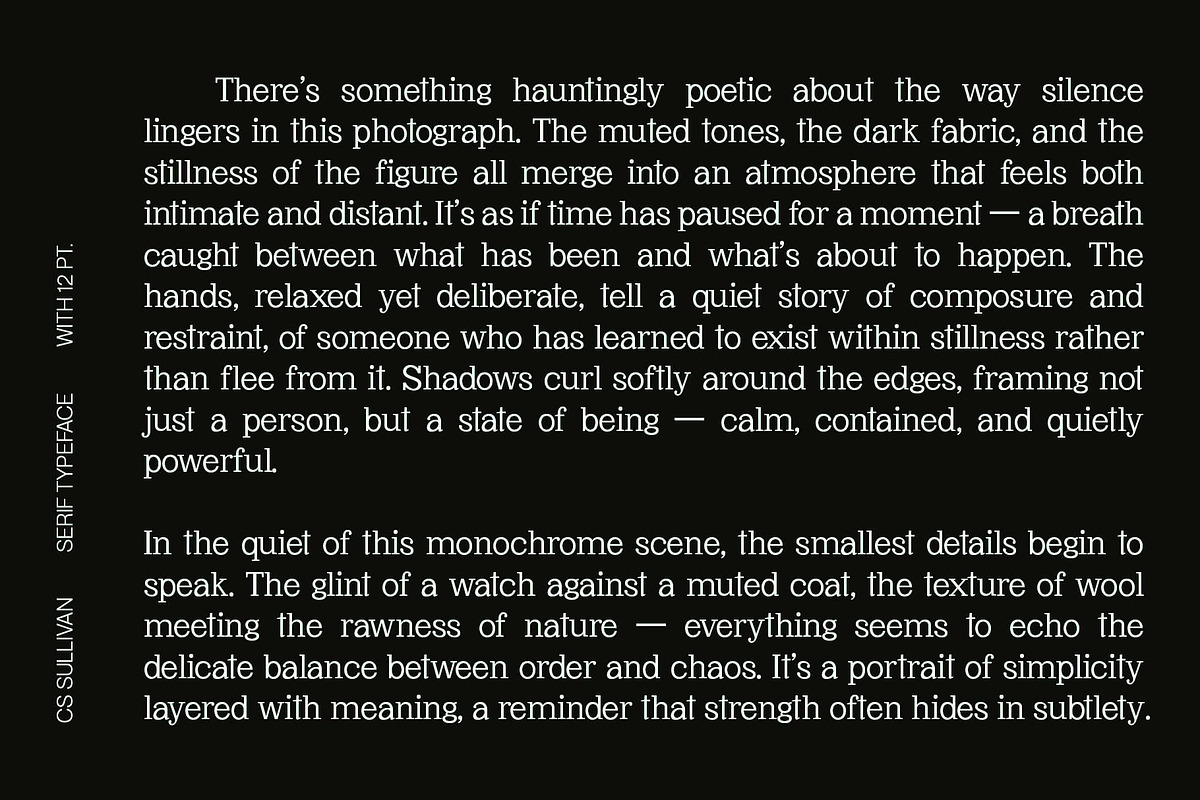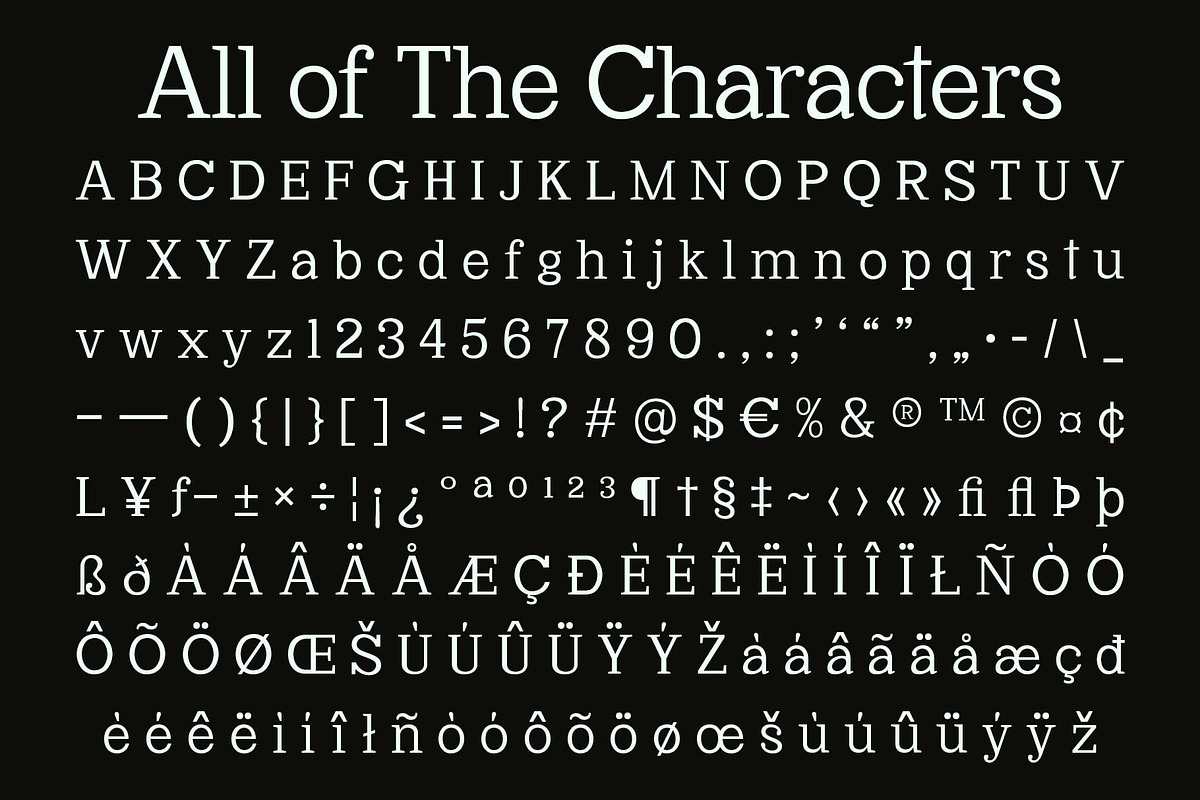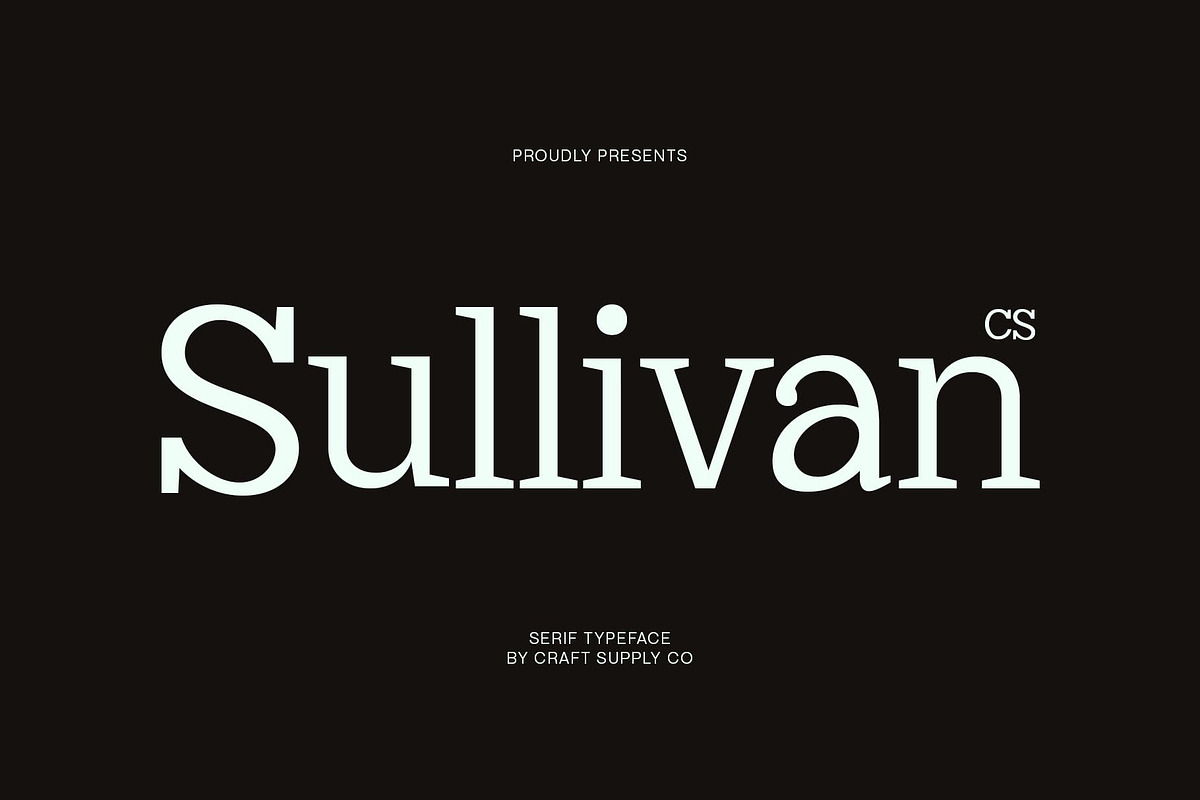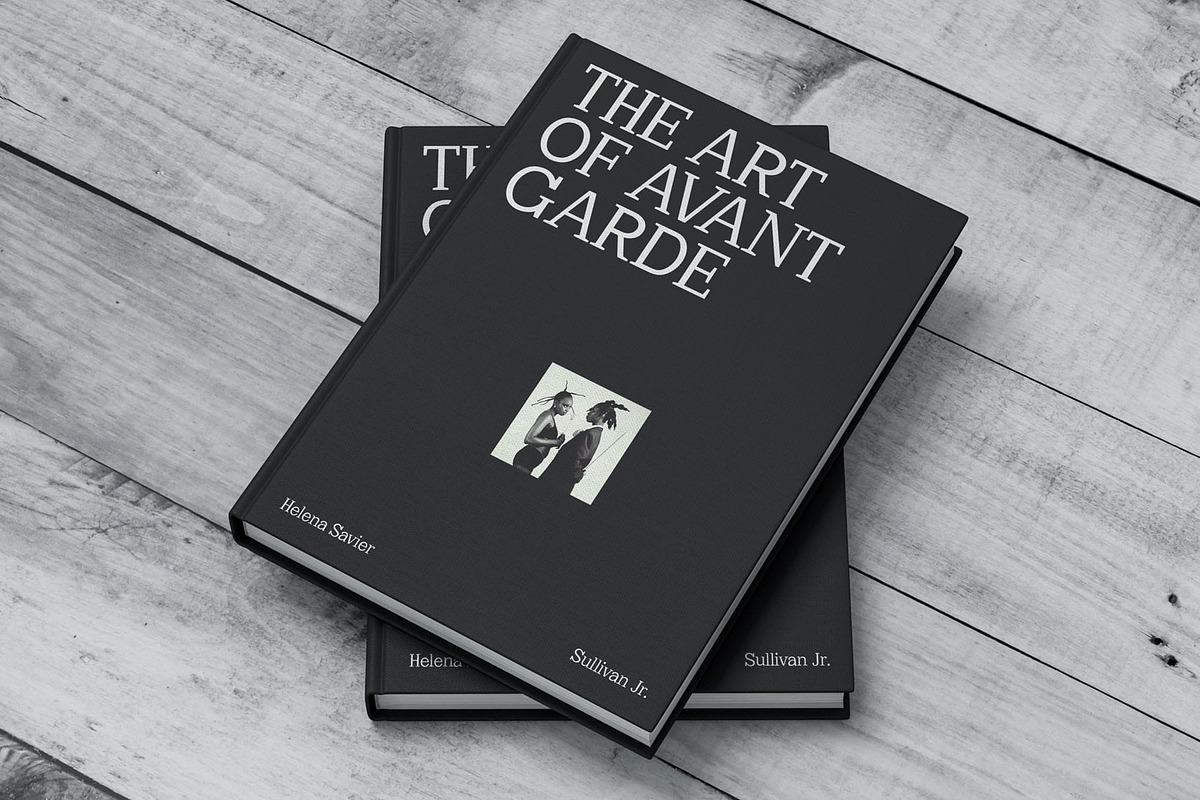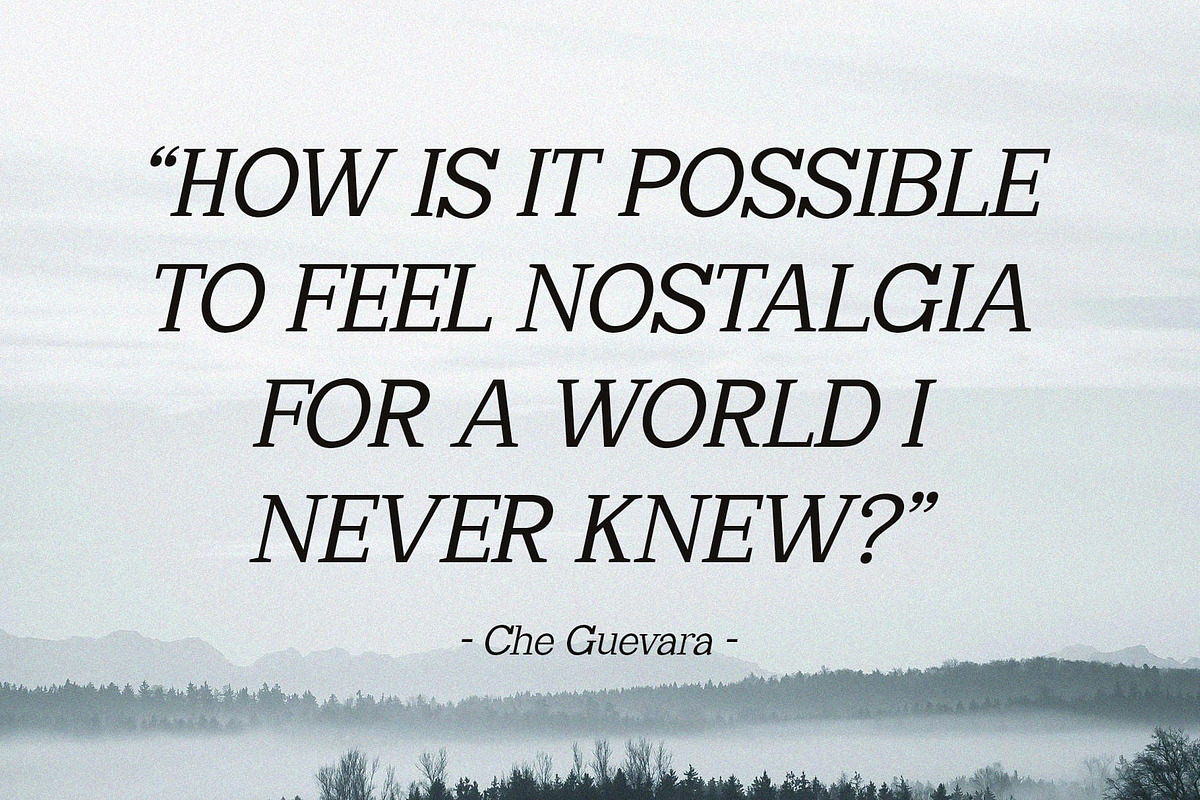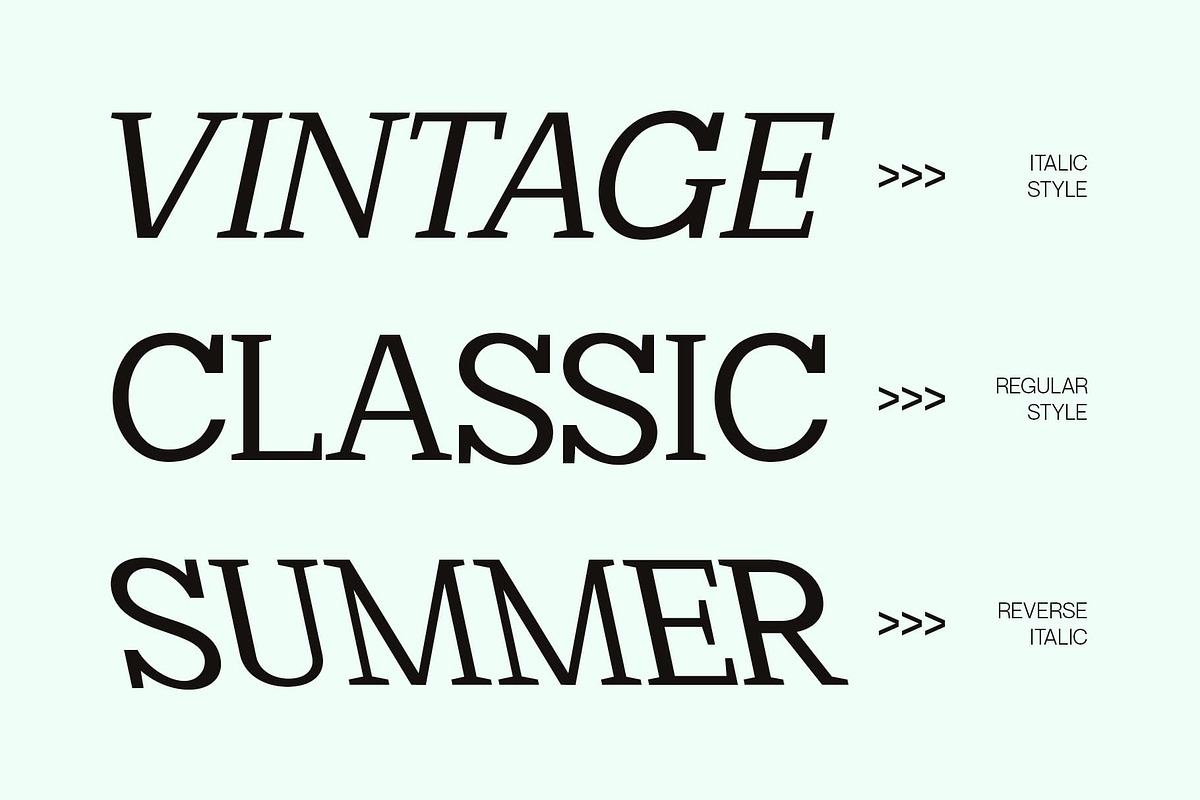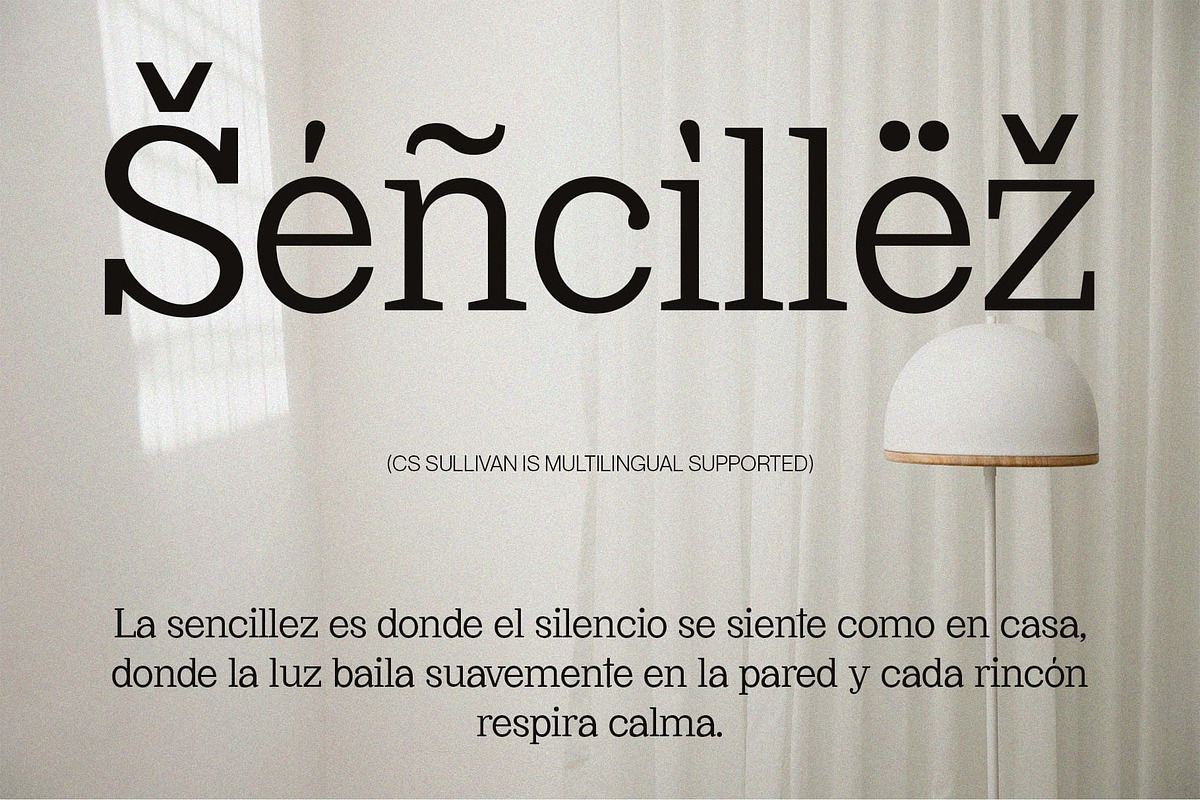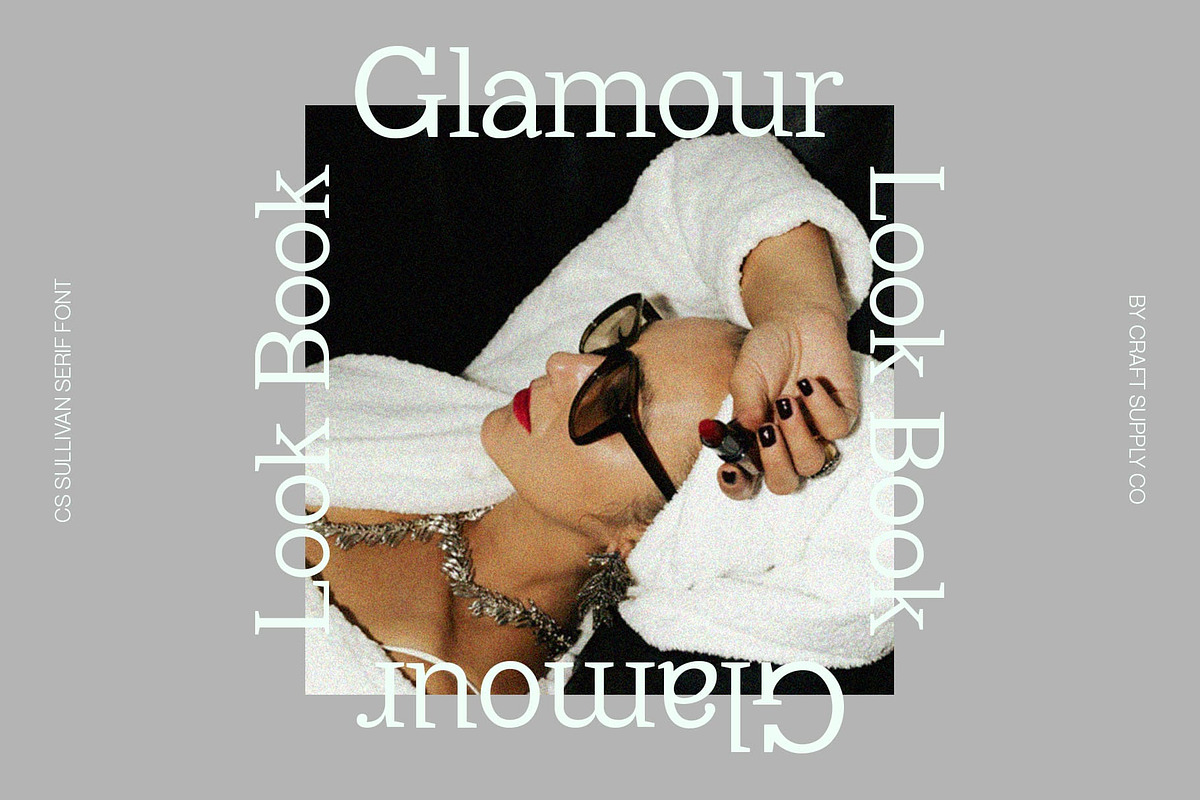
CS Sullivan – Serif Font
CS Sullivan – Modern Serif Font: Where Classic Form Meets Modern Precision
Professional Serif with Refined Balance This is a modern serif font that perfectly blends professional confidence and contemporary clarity. With its clean, slender lines and refined structure, this typeface embodies a confident, sophisticated presence that elevates any design. Every letterform reflects precision and balance, making it a versatile choice for both modern and traditional aesthetics.
Timeless Design with Modern Appeal Designed to deliver both strength and refinement, captures the essence of timeless typography while embracing a modern sensibility. Its sleek proportions and subtle contrasts create a harmonious rhythm, ensuring excellent readability across print and digital formats.
Perfect for Professional and Artistic Projects Ideal for branding, posters, editorial layouts, and luxury packaging, this font adds a layer of authority to every project. Its confident design gives a polished look to fashion magazines, advertising campaigns, or visual identities that demand a touch of sophistication. Whether used as a headline or body text, it ensures lasting impact through its modern yet professional tone.
Versatility for Every Design Vision This fonts balanced proportions and contemporary aesthetic make it a reliable choice for designers seeking both professionalism and creativity. It seamlessly adapts to minimalist compositions or expressive layouts, proving its strength as a timeless font for the modern era. CS Sullivan stands as a symbol of professional style where precision meets confidence.
- CS Sullivan Regular
- CS Sullivan Italic
- CS Sullivan Reverse Italic